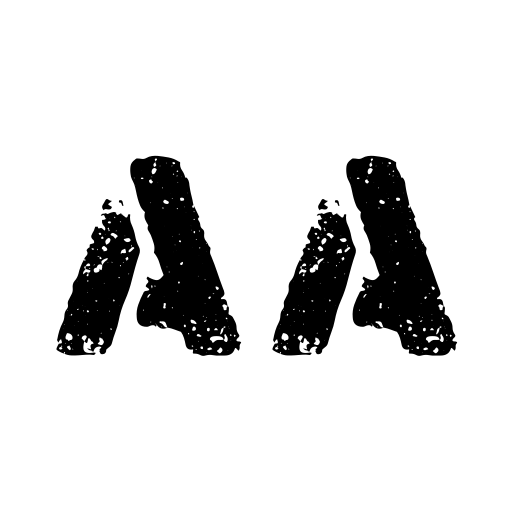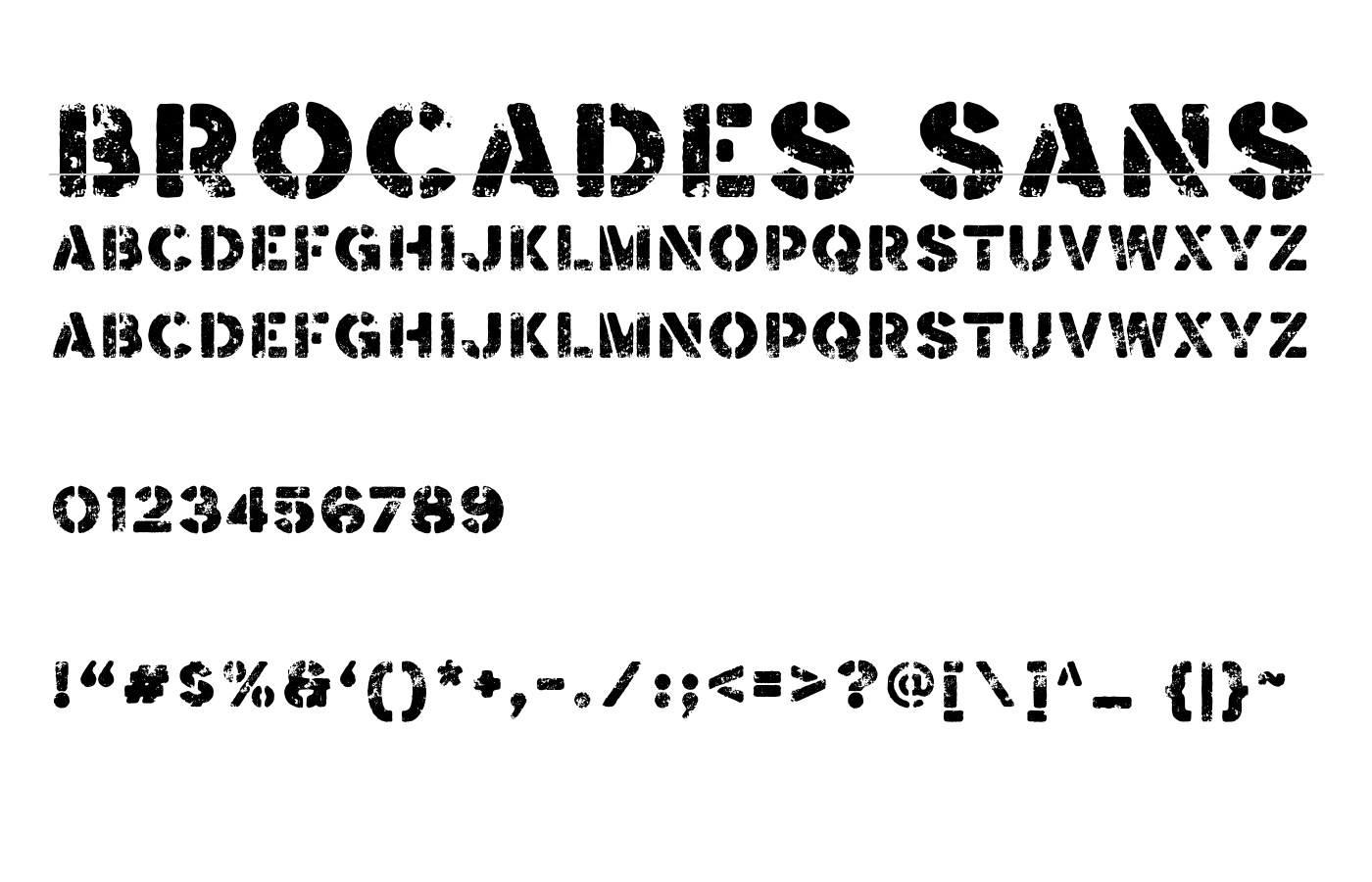
Brocades Sans is a bold, stencil-style sans serif font with a distressed, worn texture that gives it a rugged, industrial feel. Its strong, uppercase letterforms and sturdy weight make it ideal for creating eye-catching headlines and designs that require a vintage or urban edge. This font works well in branding, posters, and packaging where a bold, gritty statement is desired.
Brocades Sans Font
About Brocades Sans Font
| Designer | Edi Gunawan |